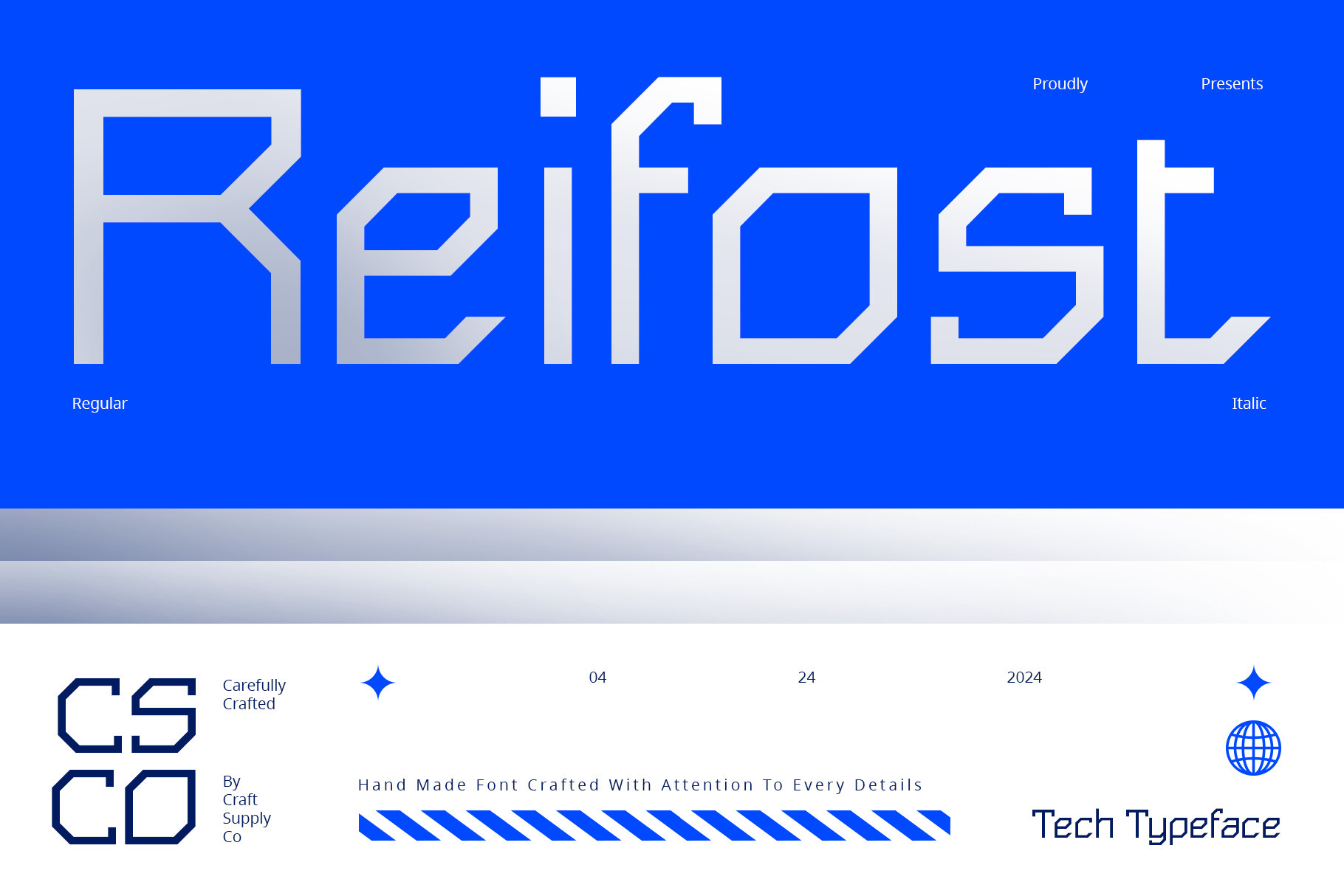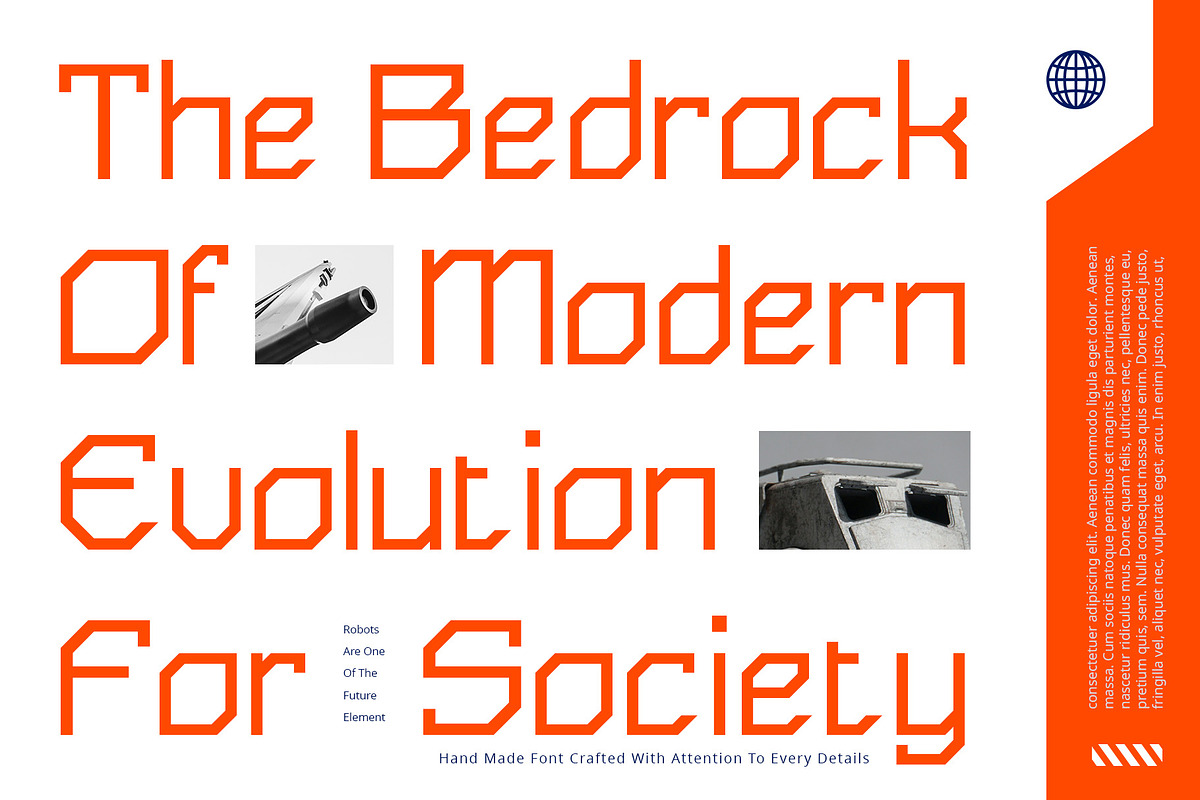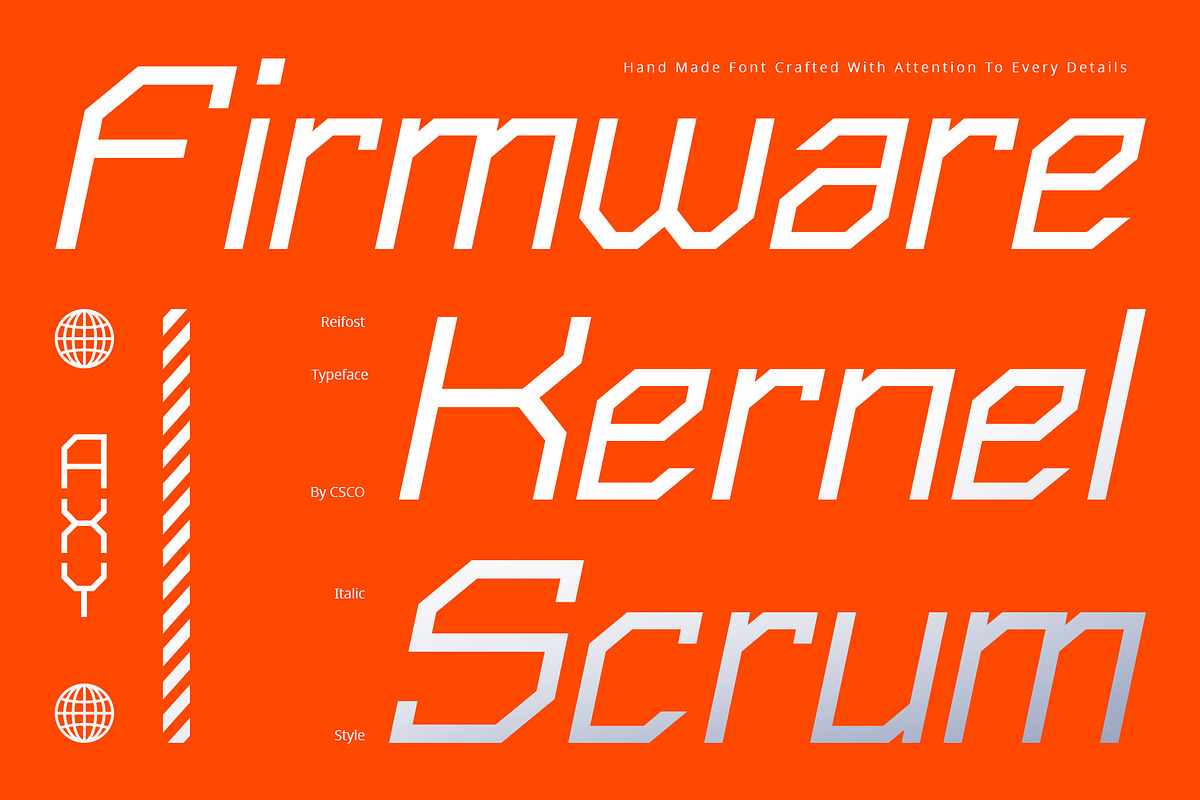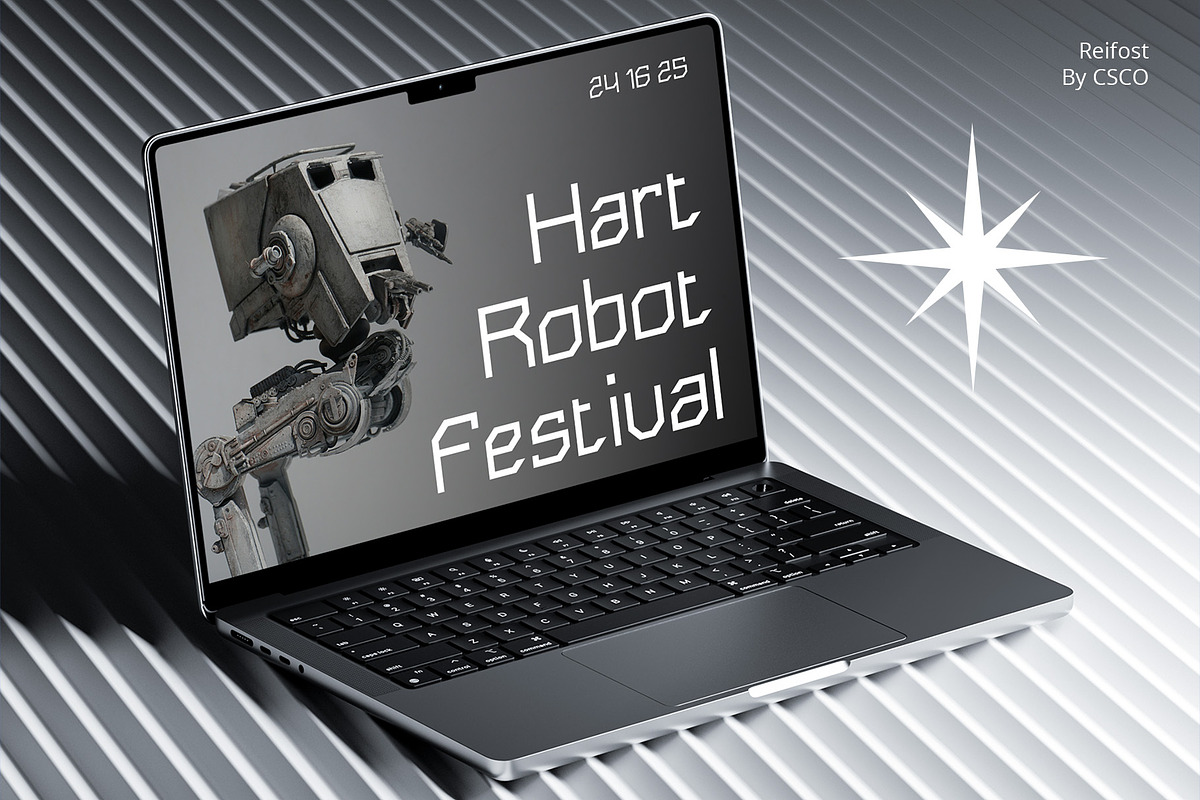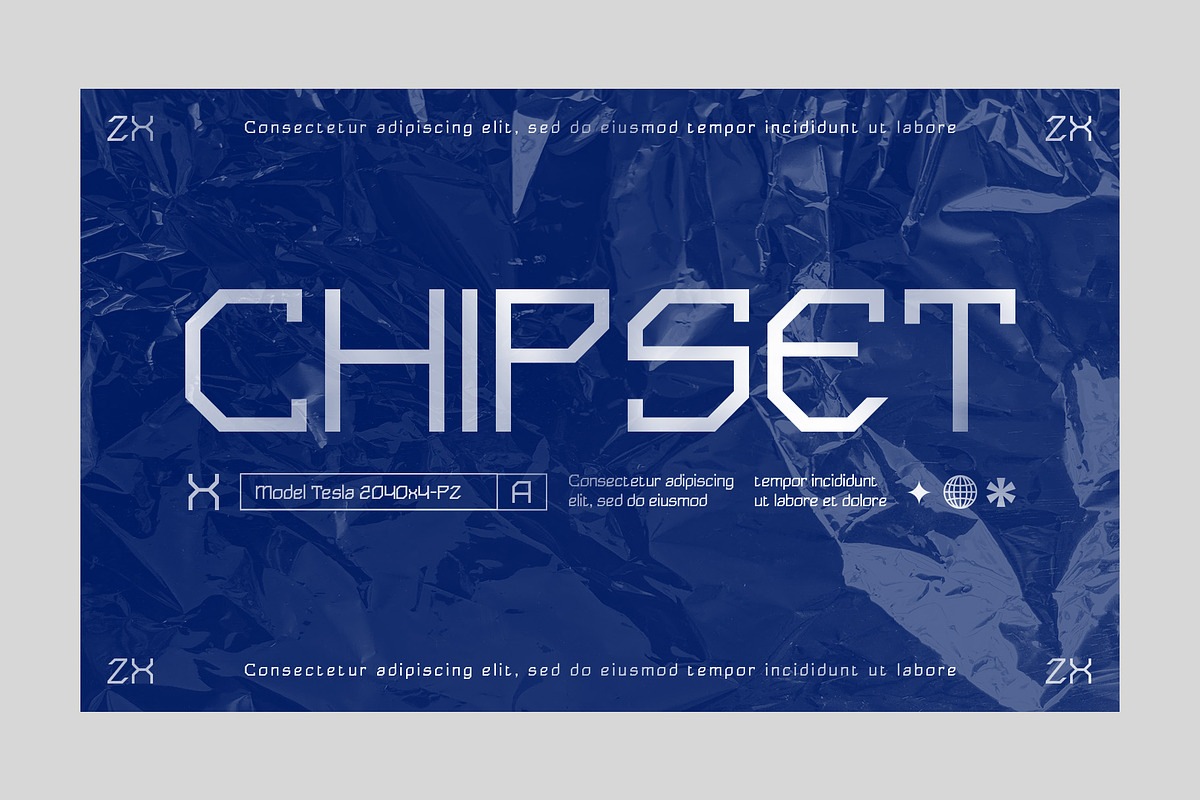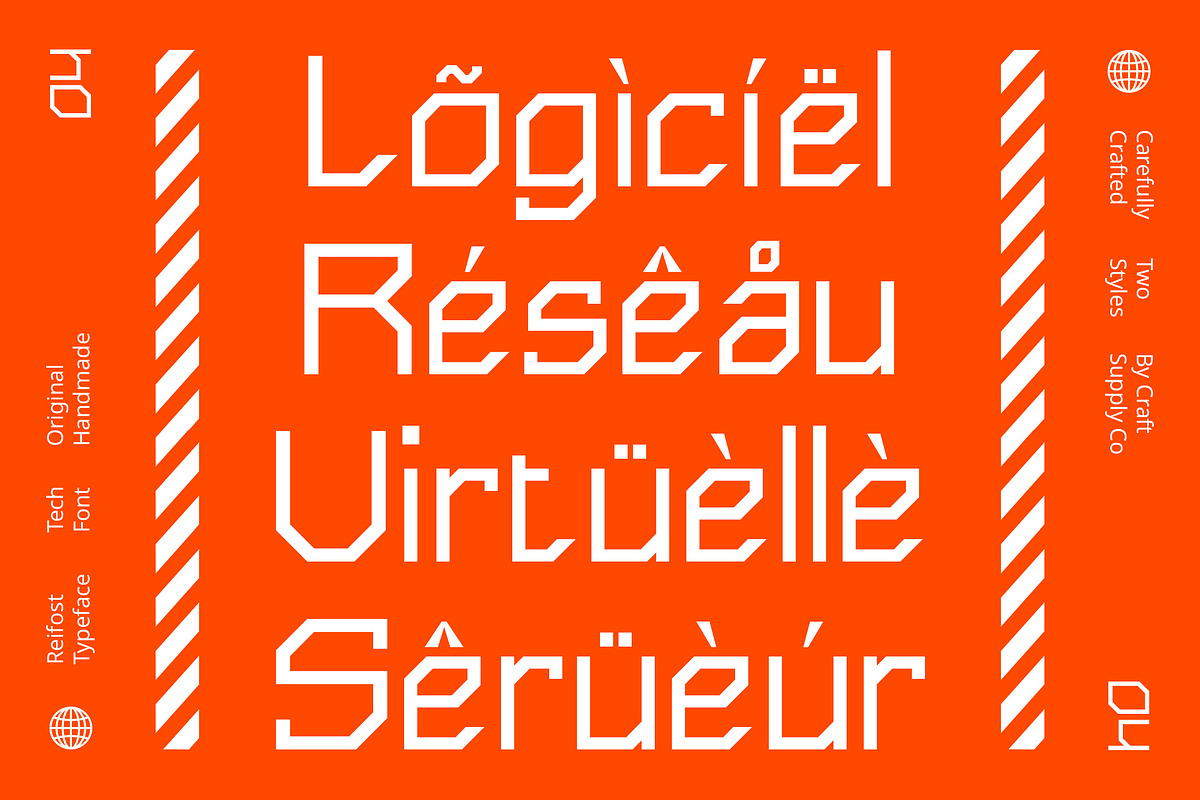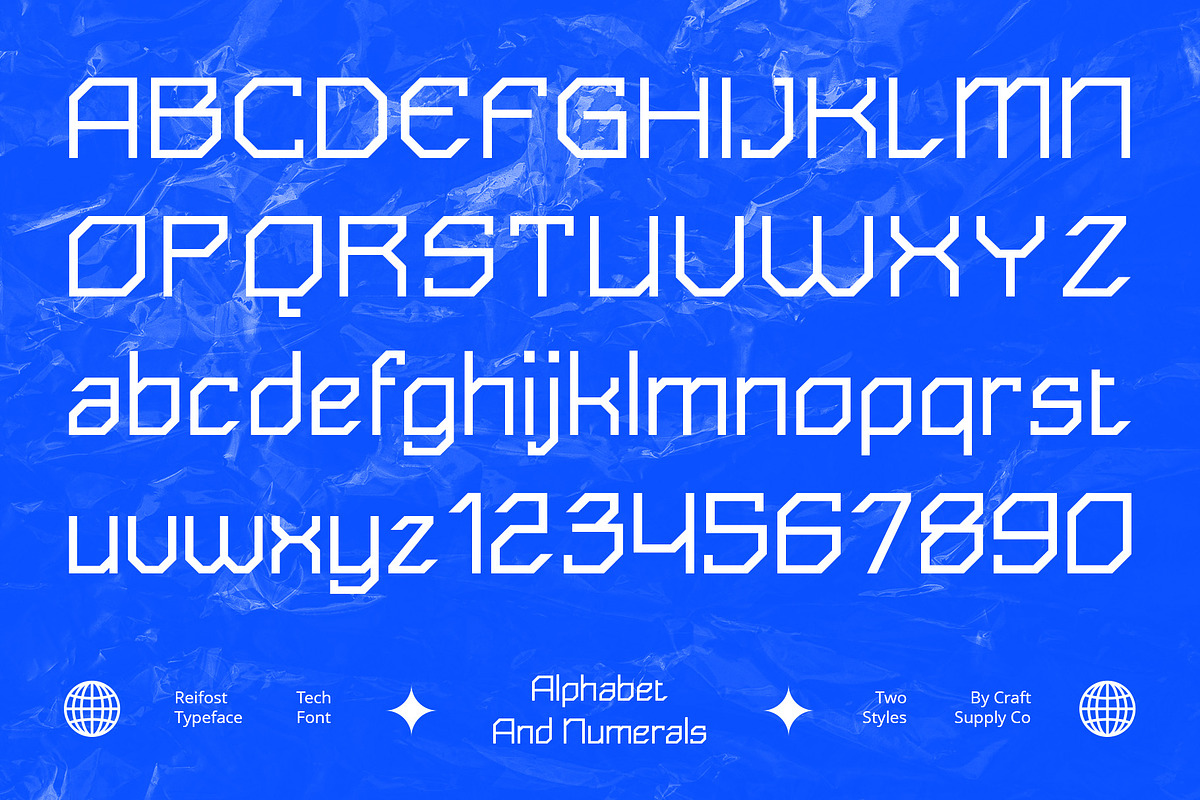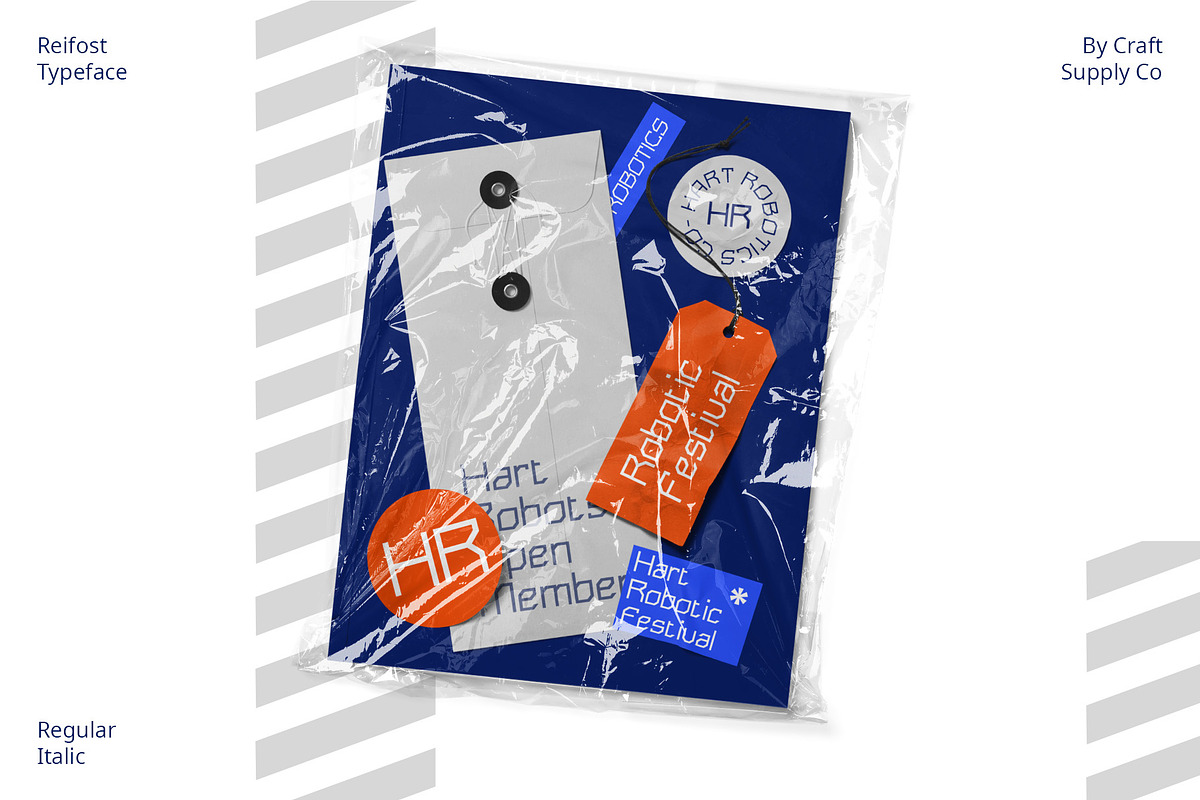
Reifost – Tech Typeface
Reifost: Futuristic Geometry Font for Modern Displays
Sleek Geometry for Modern Appeal Reifost presents a sleek and futuristic geometric design that captivates modern audiences. Its clean lines and sharp angles evoke a sense of technological advancement.
Inspired by the Tech Industry Drawing inspiration from the tech industry, This font embodies innovation and progress. Its geometric shapes display reflect the precision and sophistication of modern technology.
Futuristic Aesthetics for Tomorrow’s Designs With This font, the future is now. Its futuristic aesthetics transport designs into tomorrow, making it ideal for forward-thinking projects in the tech and innovation sectors.
Versatile for Modern Displays This font is versatile for a wide range of modern displays. Whether it’s digital interfaces, branding, or editorial layouts, its geometric charm adds a contemporary edge to any project.
Embracing Futuristic Geometry Reifost futuristic geometry font introduces a modern display font with geometric elegance inspired by the tech industry. Its sleek design and futuristic aesthetics make it a versatile choice for contemporary projects seeking to embody innovation and progress.
- Reifost Regular
- Reifost Italic